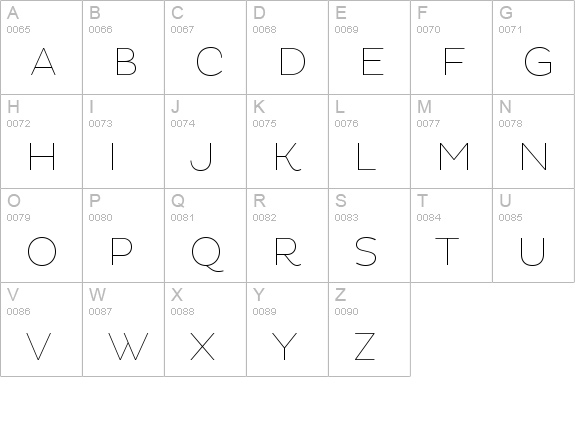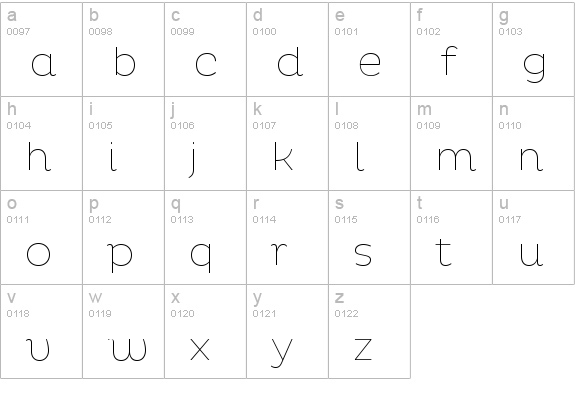
Pluto Thin is a delicate, low-contrast variant in the Pluto typeface family \xE2\x80\x94 well suited to fashion editorial, minimal branding, and high-contrast display.
Pluto Thin font is a sleek and elegant typeface that exudes a sense of modernity and sophistication. Its delicate lines and minimalist design make it perfect for a wide range of design projects, from branding to editorial layouts. The thin, graceful strokes of this font give a sense of lightness and airiness, making it ideal for creating a subtle yet impactful visual presence. Best of all, Pluto Thin font is completely free to use and is available for download at FontsMarket.com. Whether you're a designer looking to add a touch of refinement to your projects or a business owner aiming to elevate your brand's image, Pluto Thin font offers a versatile and stylish solution. Don't miss out on this opportunity to enhance your designs with this beautiful typeface - download Pluto Thin font today and elevate your creations to new heights.